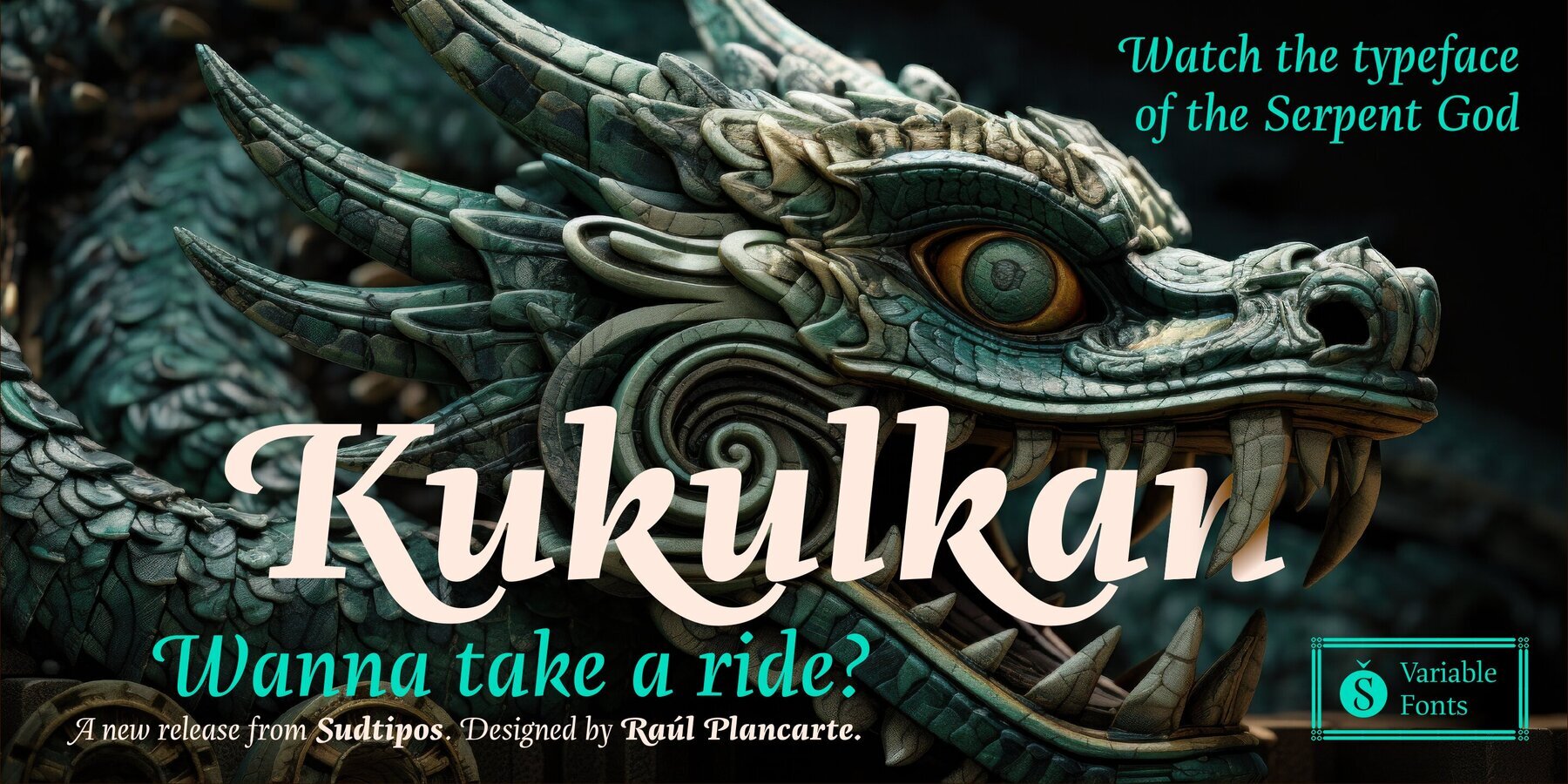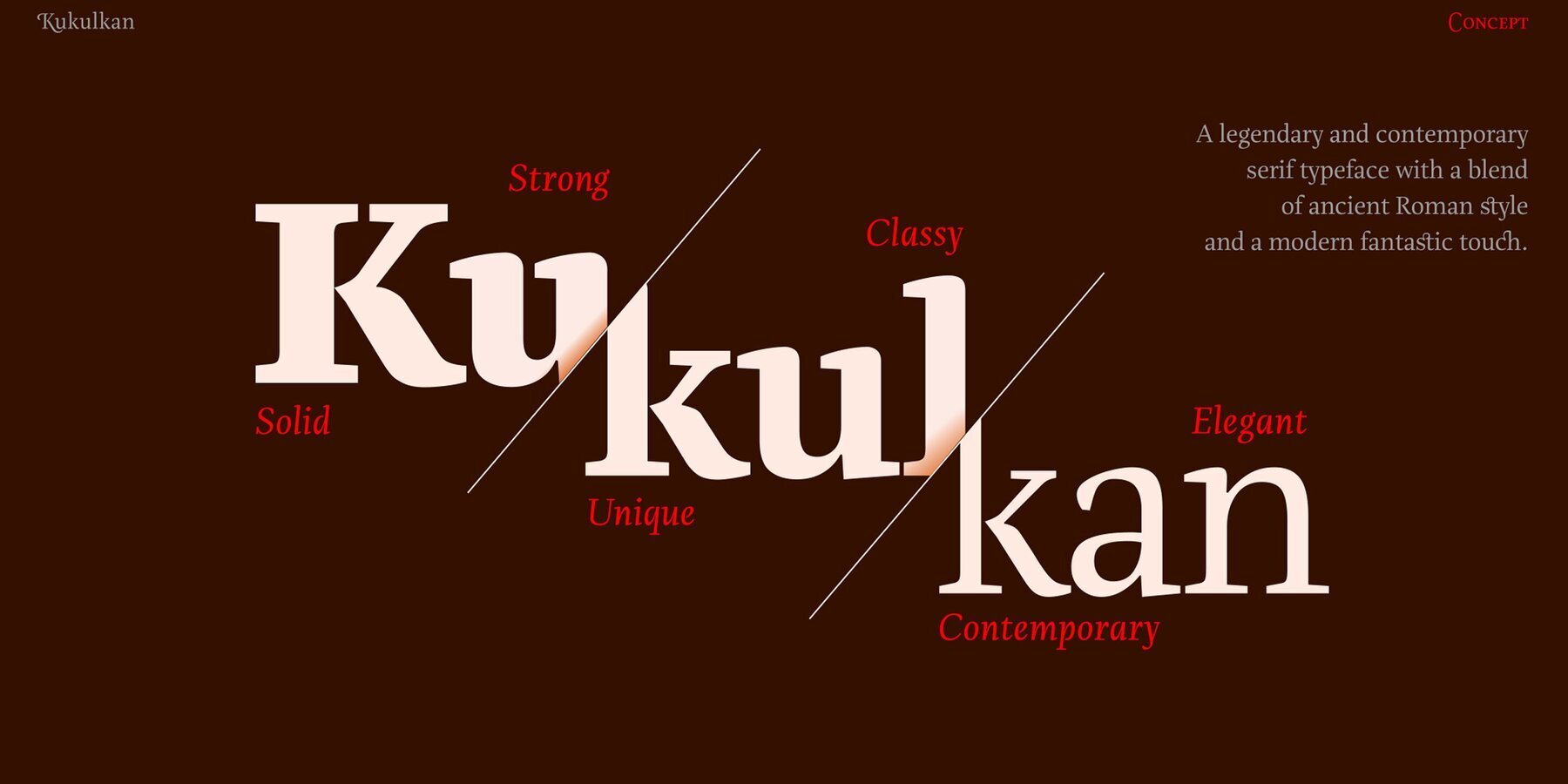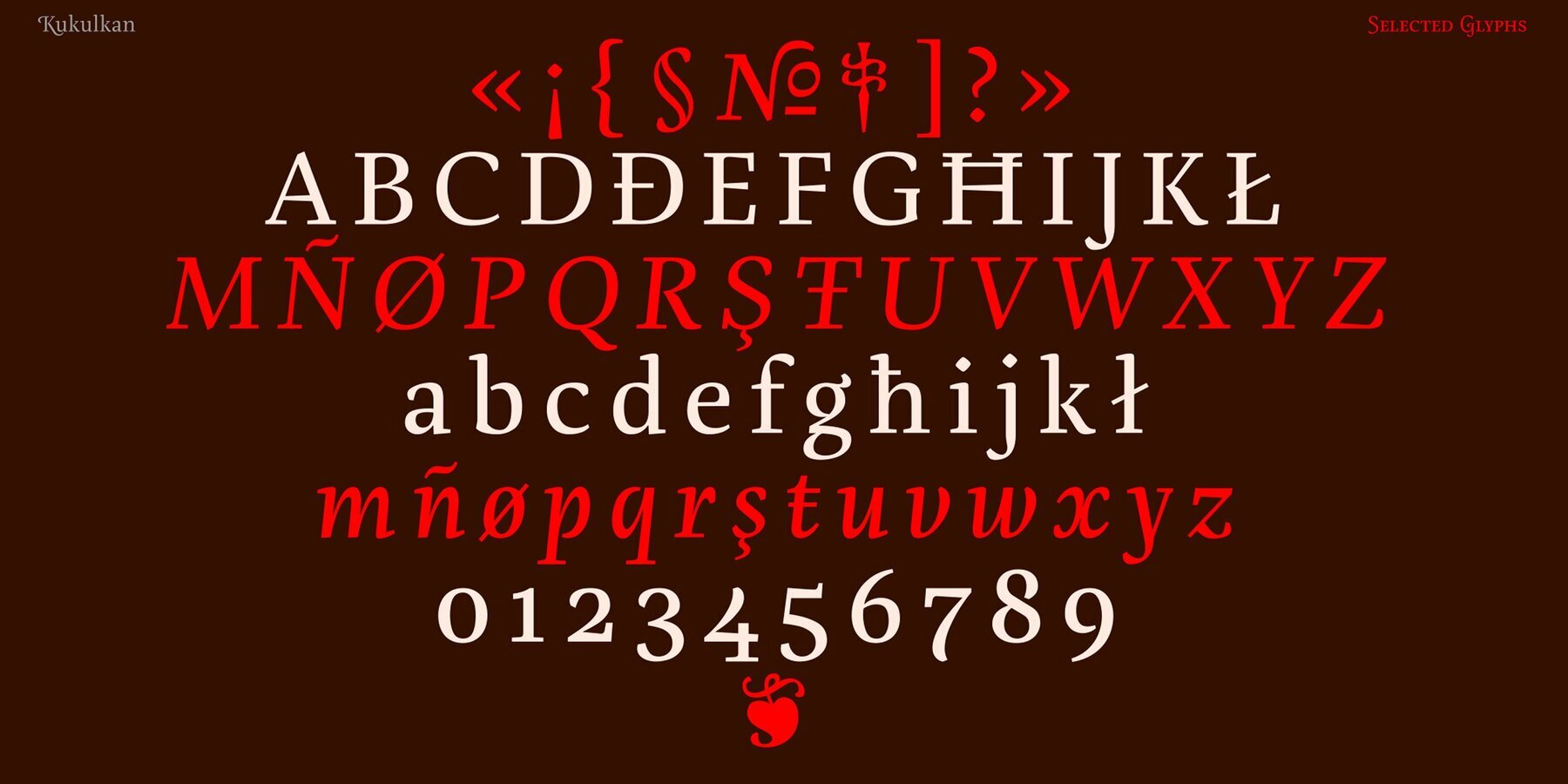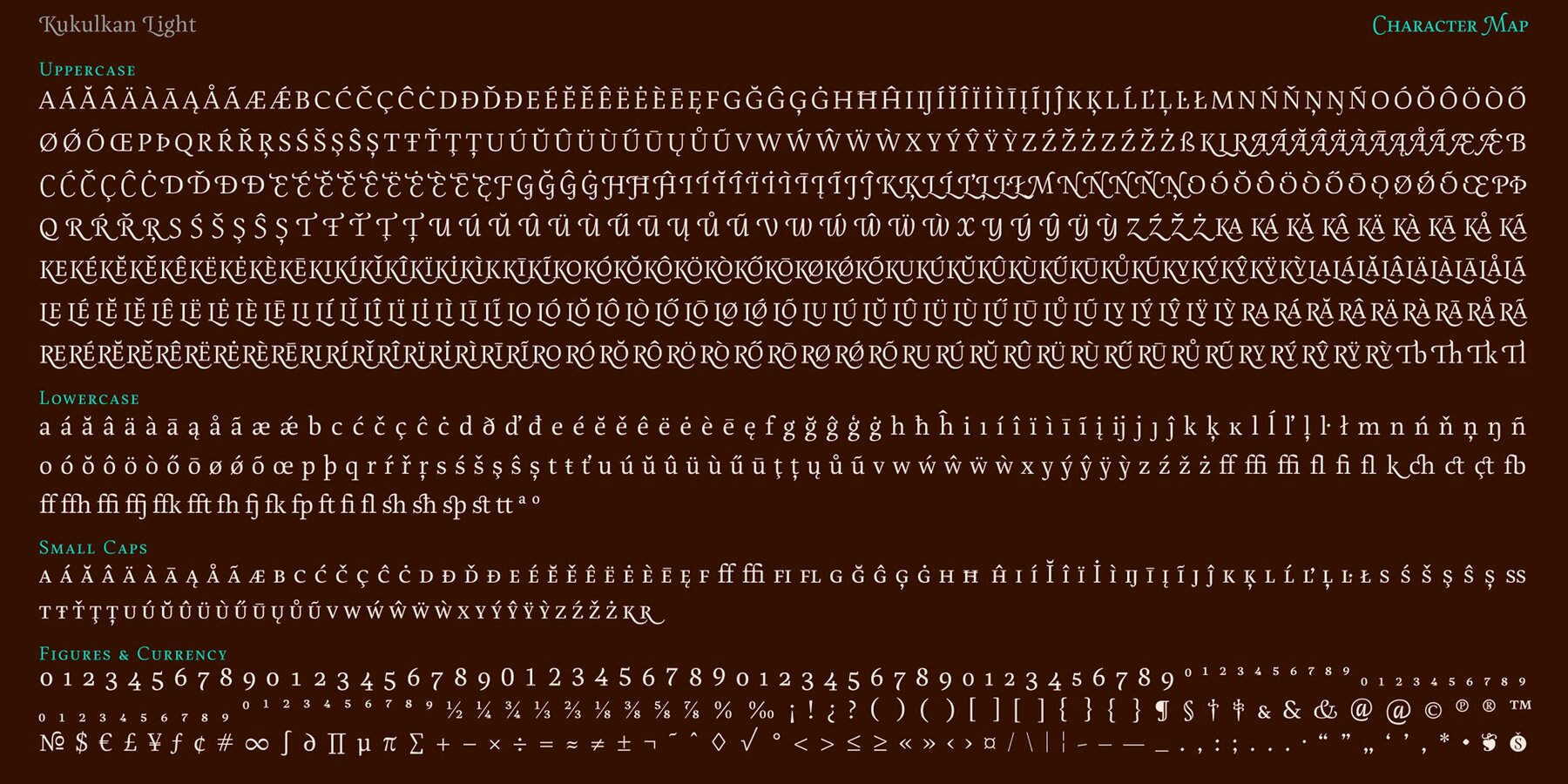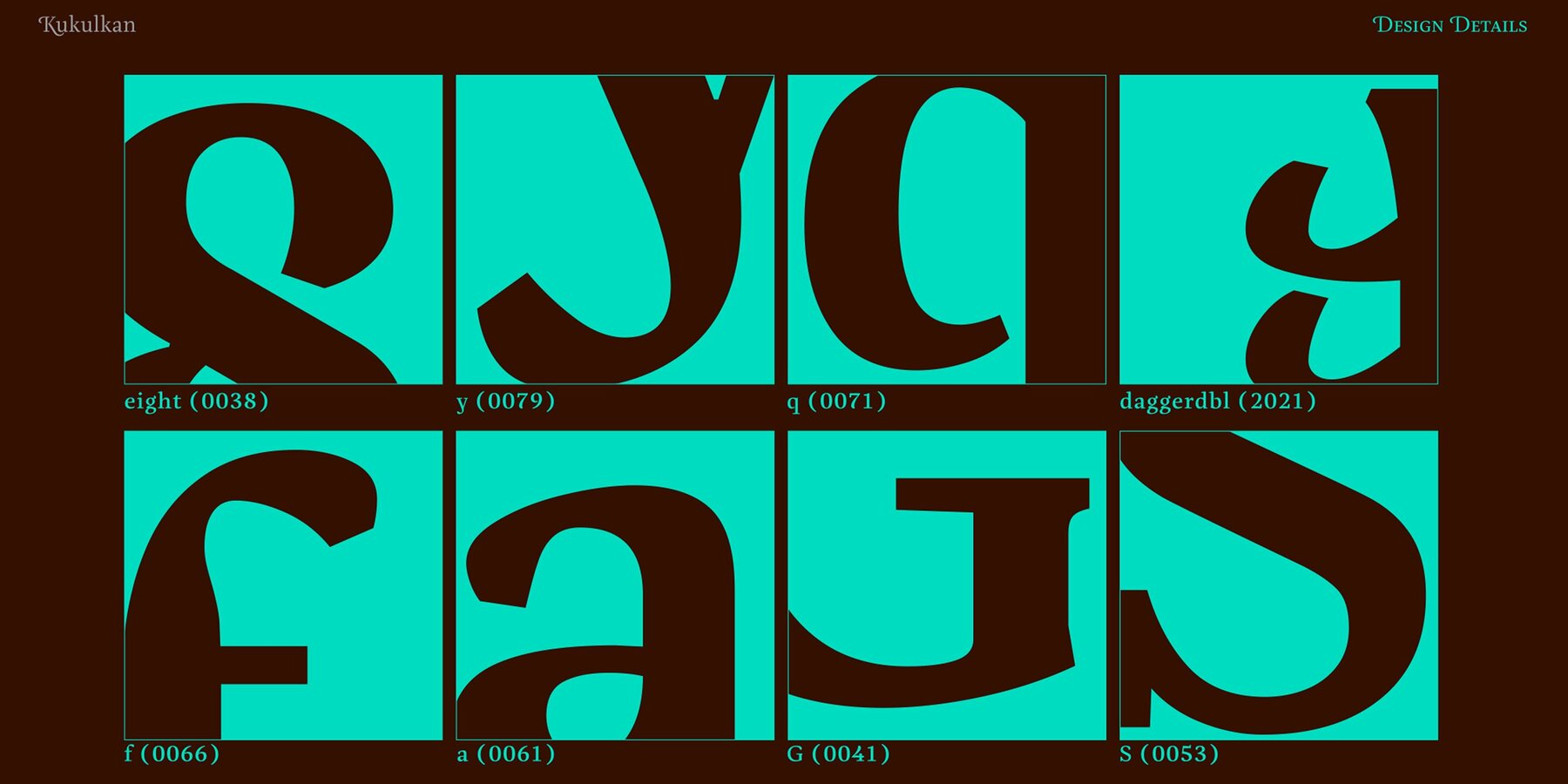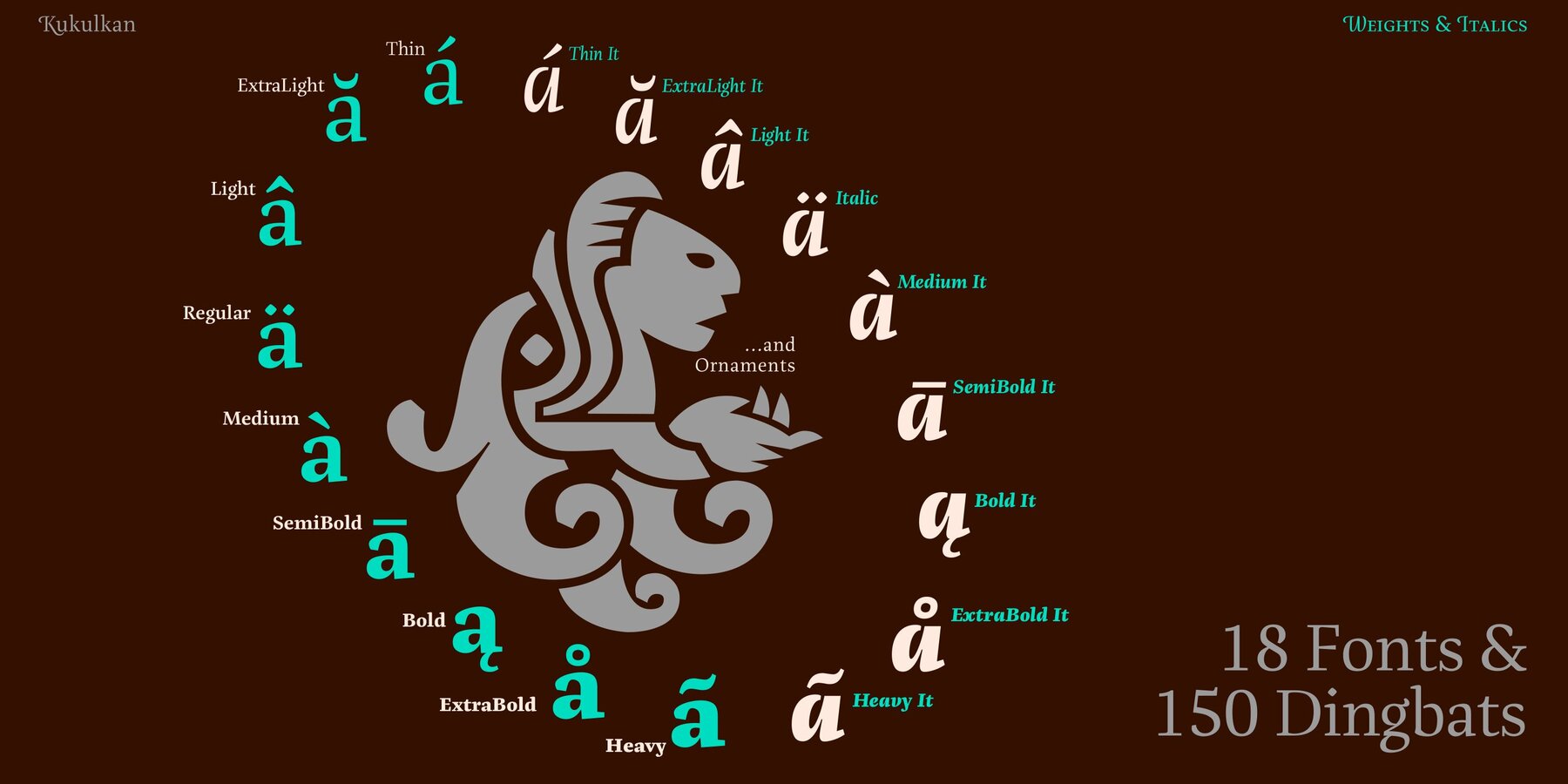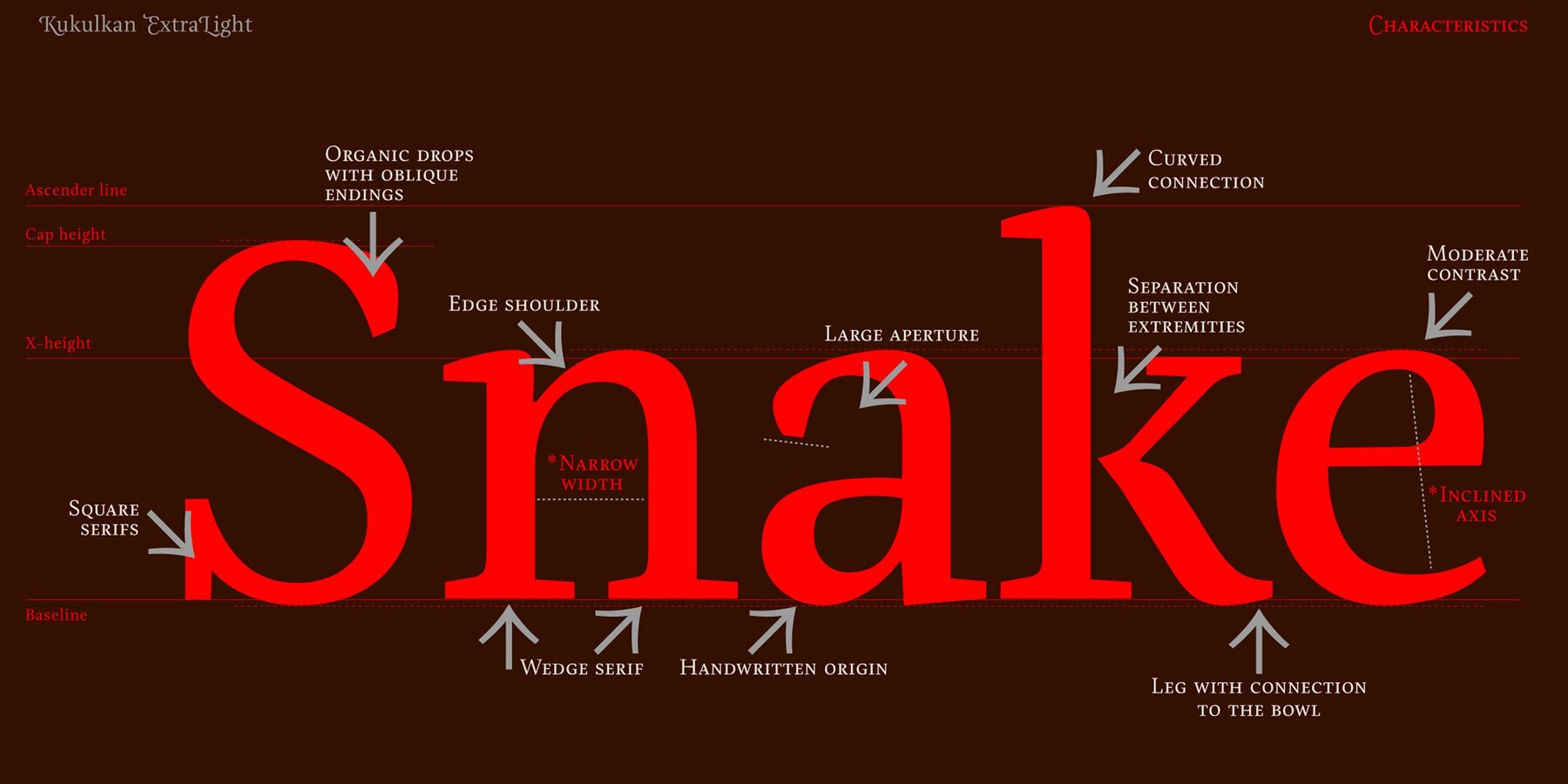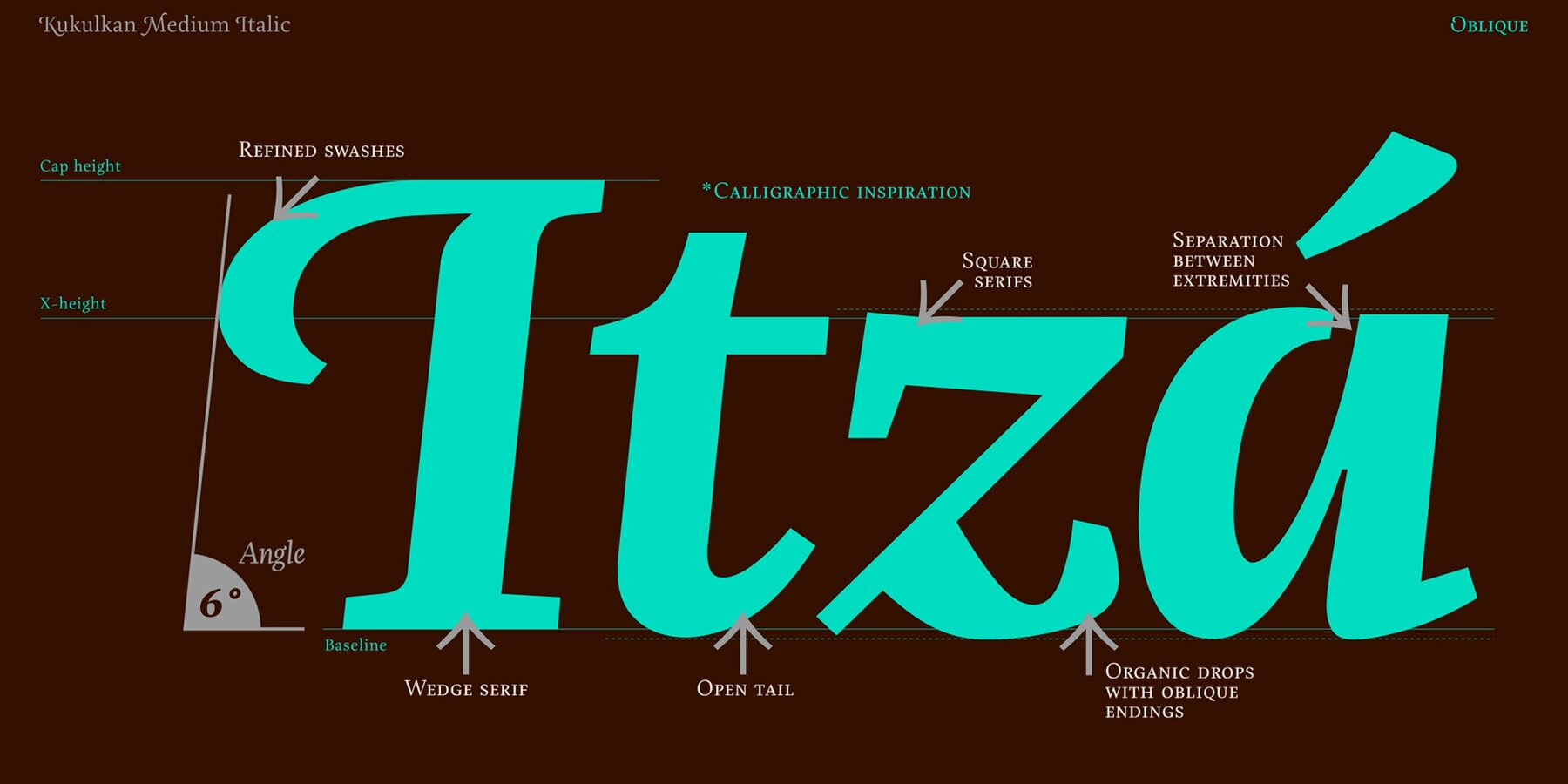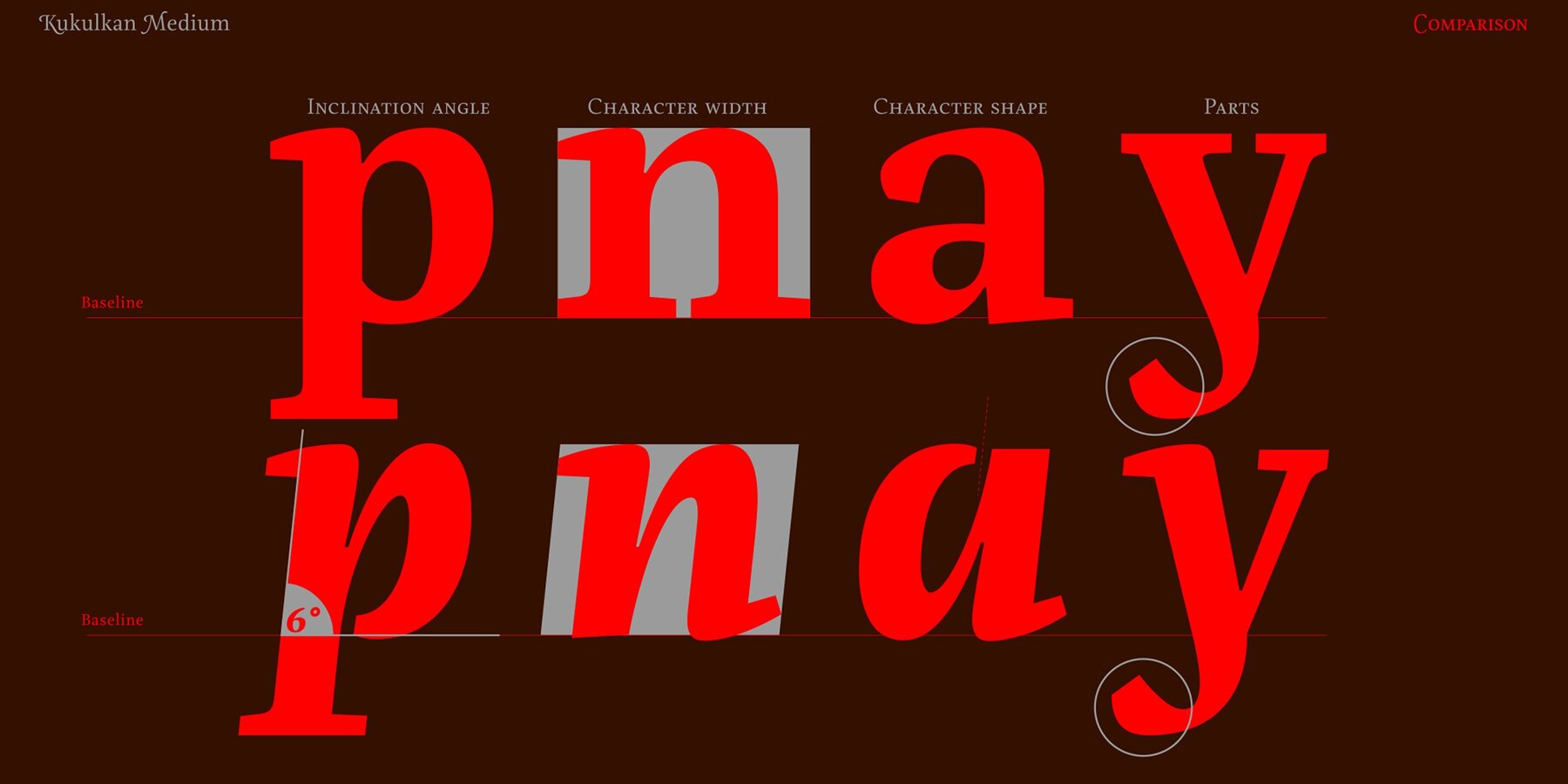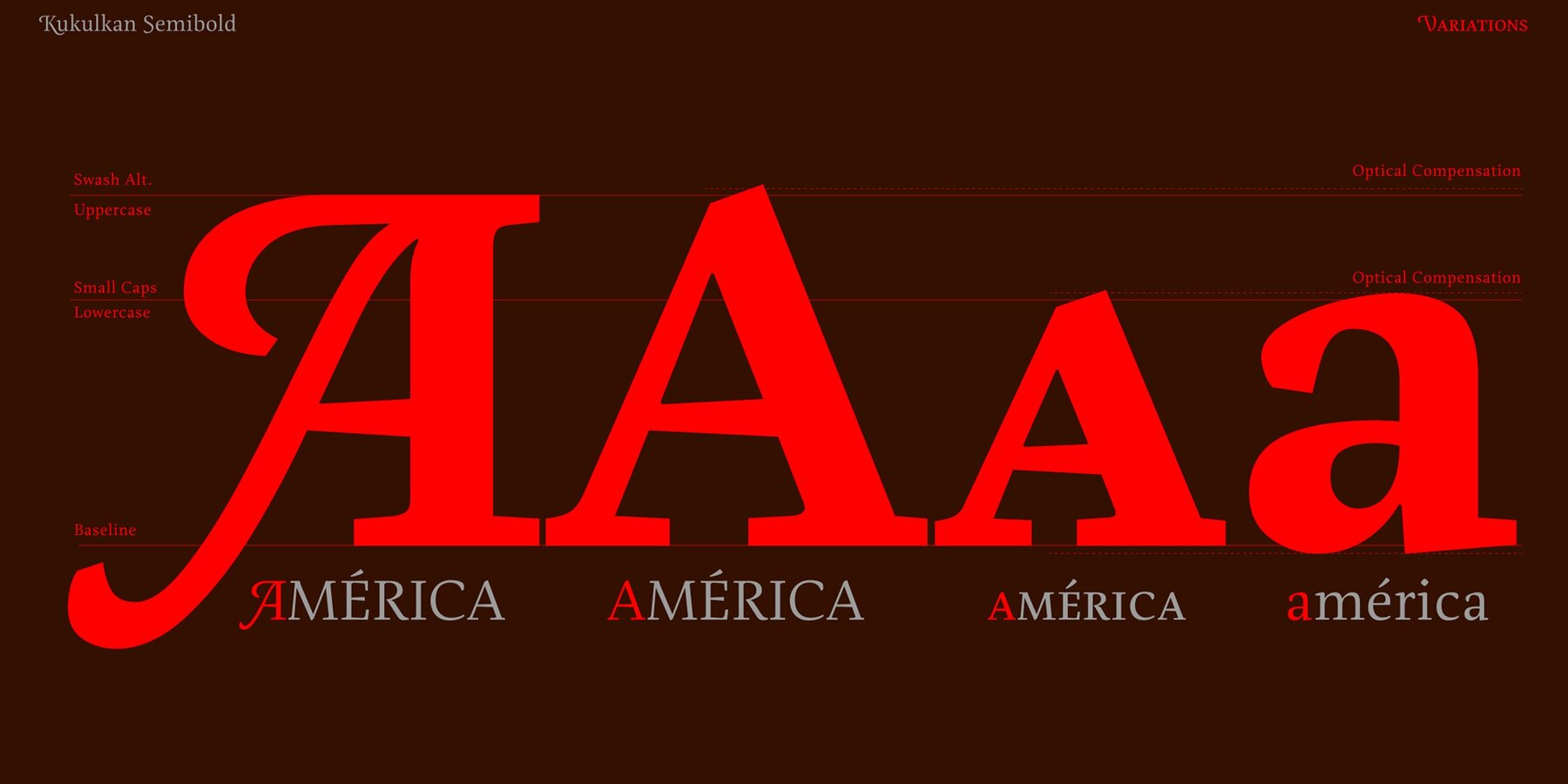
Kukulkan Font
Introducing "Kukulkan," a font designed by Raúl Plancarte, adorned with accolades, that unravels the structural possibilities nestled within the realms of ancient Roman letters and fantastical styles, infusing them with a contemporary essence. This typeface exudes a conspicuous plasticity and expressiveness, seamlessly harmonizing within its original intended context as a font for continuous text, bolstered by its robust and assured strokes. It stands as the triumphant culmination of a thorough exploration, meticulously considering legibility. Infused with nuanced elements that evoke a pre-Hispanic idealization of Mayan culture, this essence takes center stage in its darker iterations. However, it is adept at adapting to a myriad of ethnic and cultural nuances prevalent in our global village. Noteworthy is the fact that the "Kukulkan" font family is available as a variable font, offering a dynamic range of styles across its 18 fonts, endowing it with a lively, human, and refined demeanor. Additionally, it features a variant known as "Kukulkan Ornaments," a collection of 150 dingbats comprised of icons, symbols, and frames intricately inspired by the iconography of Mayan hieroglyphs. In its natural application, "Kukulkan" thrives in contexts of art, lifestyle, culture, seamlessly bridging tradition and avant-garde. This font excels in the realm of editorial design, evident in its adeptness at crafting robust headlines, and in select cases, it lends itself to creating striking brand identities.